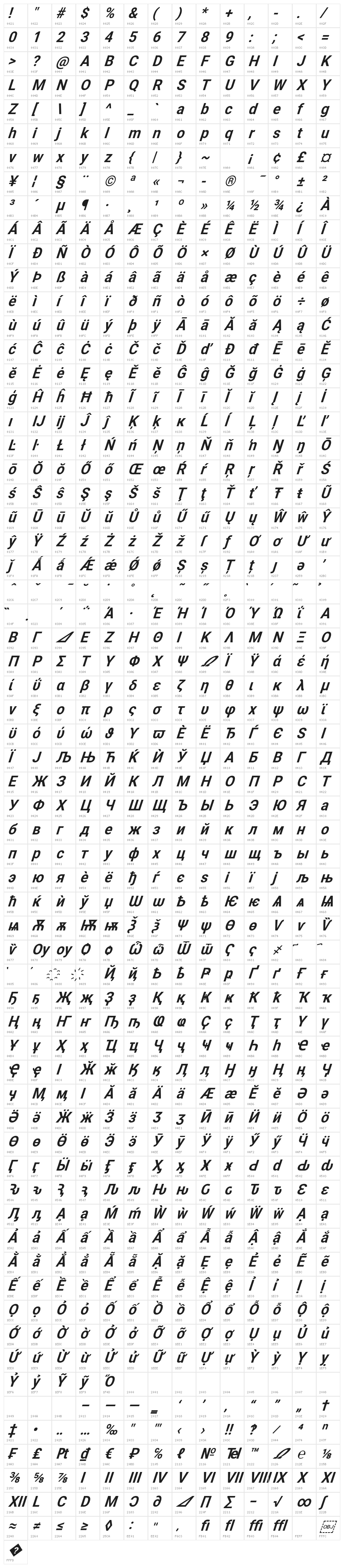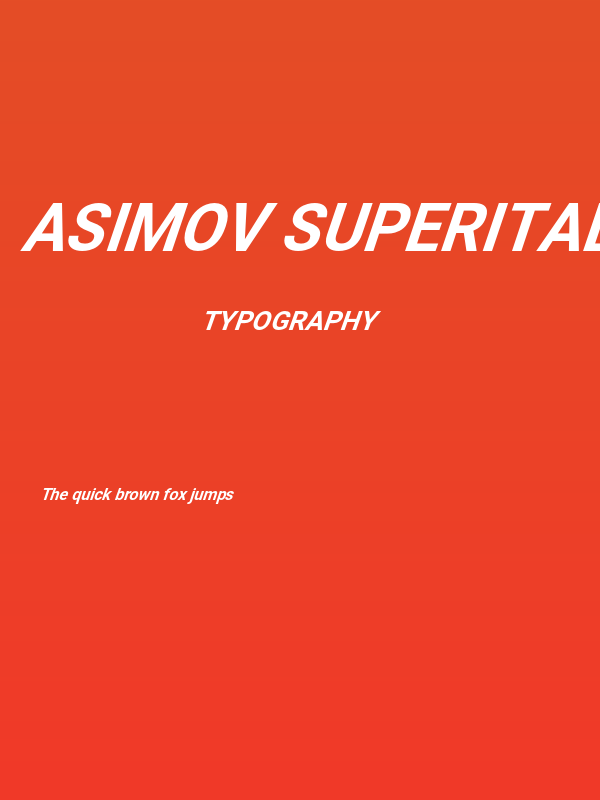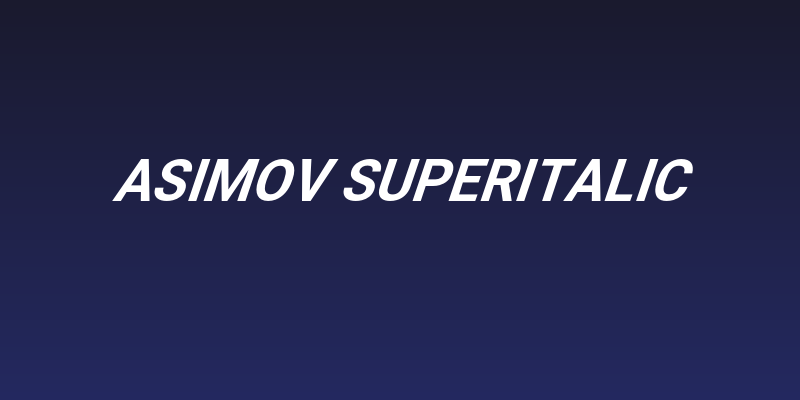
Asimov SuperItalic Font
Asimov SuperItalic Description
This font features a dynamic and forward-leaning style, characterized by its italicized and bold appearance. The letters are well-defined with a slight slant, giving a sense of motion and energy. The strokes are consistent in thickness, providing a uniform look across all characters. The uppercase and lowercase letters maintain a cohesive design, while the numerals and special characters are clear and easily distinguishable. This font's modern aesthetic makes it suitable for a variety of applications where a contemporary and assertive look is desired.
| Use Case | Headlines, Logos, Advertising |
| Proposed Projects | Ideal for branding, advertising, and editorial design projects that require a modern and energetic typeface. |